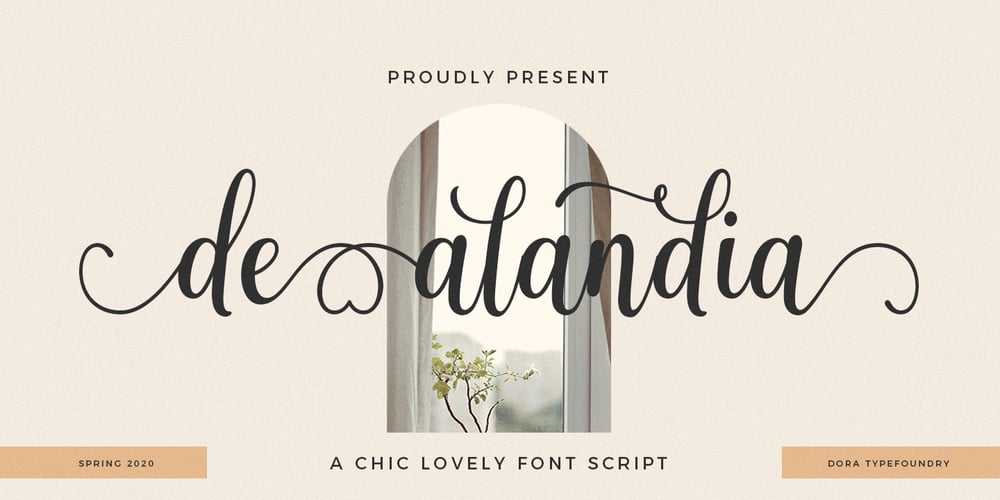
De Alandia Font Family was designed by Zahratul Laila and published by Dora Typefoundry. De Alandia contains 1 styles and family package options. Introduce my new font De Alandia is a unique blend of classic and modern fonts with a variety of beginning and ending swashes, I hope you are drawn to a beautiful and aesthetic font to perfect your extraordinary project. It features varied baselines, smooth lines, gorgeous glyphs and stunning alternatives.De Alandia is suitable for today’s growing market designs, this font has a trendy, natural and soft style, with this font you can use. opportunities at every moment of an extraordinary way to highlight your best party celebration, because this font will support needs such as weddings, events, invitations, side cards, table numbers, header menus, displays, logos, blog sliders, addresses specialty, stamps, packaging, greeting cards, etc.Please send a message if you have any questions.